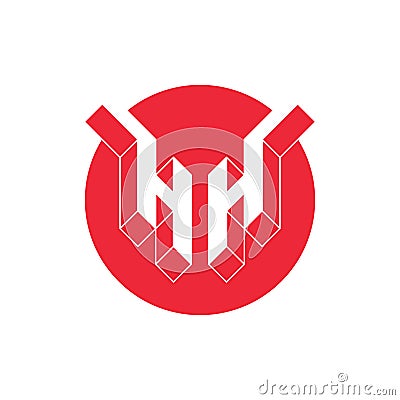
H And H - Monogram Or Logotype. Isometric 3d Font For Design. HH - Original Three-dimension Letters In A Red Circle. Vector
H and H - monogram or logotype. Isometric 3d font for design. HH - Original Three-dimension letters in a red circle. Vector #212576912
H and H - monogram or logotype. Isometric 3d font for design. HH - Original Three-dimension letters in a red circle. Vector.